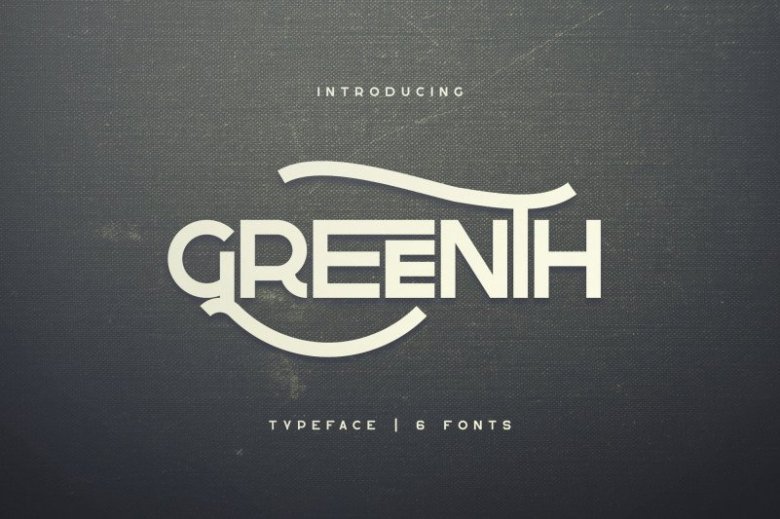
Greenth Display Typeface
Introducing Greenth Display Typeface – Latin & Cyrillic – 6 fonts
Greenth is vintage, bold typeface with latin and Cyrillic support. Every font contains 1221 glyphs, tons of alternate glyphs, ligatures and multilingual support. It’s a very versatile font that works great in large and small sizes.
Greenth is perfect for branding projects, home-ware designs, product packaging, magazine headers – or simply as a stylish text overlay to any background image.